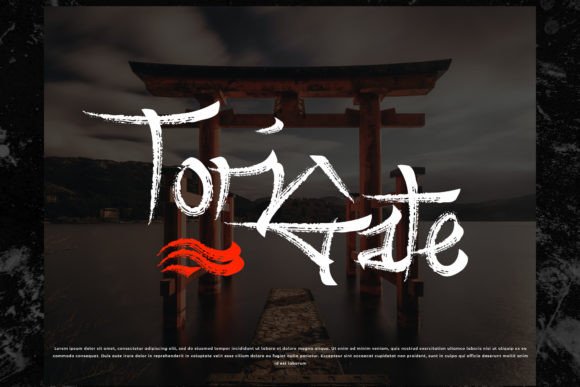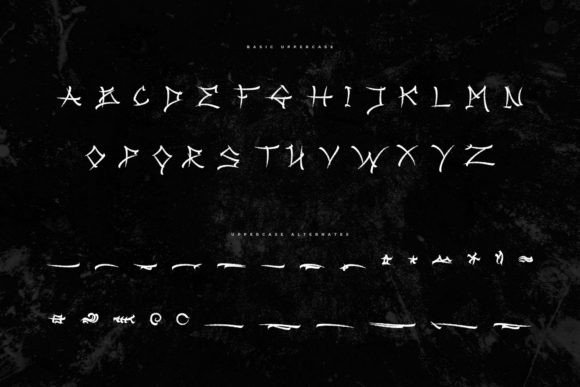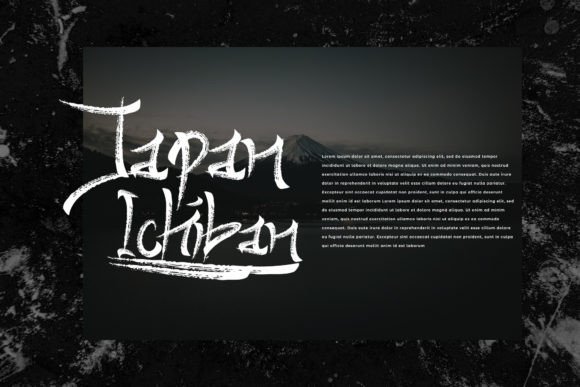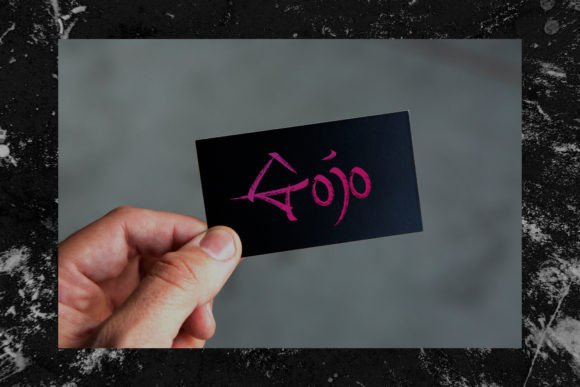
Introduction to Kareudon Font
Have you ever been stuck on a design project, desperately searching for the perfect font to bring your creative vision to life? You know, that one elusive element that sets your design apart from the rest. For designers, finding the right font can be a game-changer. It’s the difference between a good design and a great one.
Enter the Kareudon Font, a stunning display font with a Japan brush style that’s sure to elevate any design project. With its unique aesthetic and versatility, Kareudon Font is the perfect addition to your design resource arsenal.
Key Features of Kareudon Font
- Unique, hand-drawn design with a playful and creative touch, perfect for various design projects.
- Designed with a focus on creative projects, including digital art, graphic design, and typography-based art.
- Perfect for designers looking for a unique and eye-catching font to elevate their designs and stand out from the crowd.
Honest Review: Kareudon Font
As a designer, I’m always on the lookout for high-quality design resources to elevate my creative projects. Recently, I had the chance to try out the Kareudon Font, and I must say it’s been a game-changer.
What works well: ✨ The Kareudon Font is incredibly versatile and can be used for a wide range of design projects, from logos to brochures. The font’s unique style and elegant feel make it perfect for creating eye-catching designs. I also appreciate that the font is available for free download, making it an excellent resource for designers on a budget.
What doesn’t work so well: ⚠️ The Kareudon Font is a bit limited in terms of customization options, which might be a drawback for some designers. However, for most projects, this font’s unique style and elegance make up for the lack of customization options.
Overall impression: The Kareudon Font is an excellent addition to any designer’s toolkit. Its high-quality design, transparent background, and free download availability make it an ideal resource for creative projects. While it may have some limitations, the Kareudon Font is definitely worth trying out for any designer looking to elevate their designs.
Kareudon Font
The Kareudon Font is a free design resource ideal for creative projects requiring a unique and high-quality font. With its transparent background, it’s easy to integrate into various design platforms.
When to use: Pacifico Font is suitable for projects that require a sense of luxury and elegance, such as high-end product packaging, business cards, and website headers.